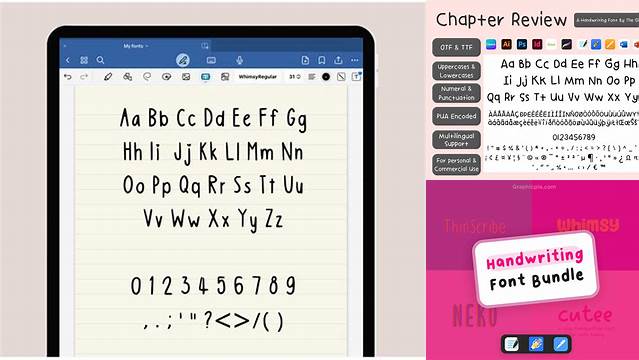
Best Handwriting Fonts For Goodnotes
Are you a GoodNotes enthusiast looking to jazz up your digital note-taking experience, guys? Well, you're in the right place! Choosing the best handwriting fonts for GoodNotes can seriously transform how you interact with your notes. It's like giving your digital handwriting a total makeover, making it look neater, more stylish, and, let's be honest, way more fun. This guide is all about helping you find the perfect fonts to match your style and make your GoodNotes experience pop.
1. Understanding the Power of Handwriting Fonts in GoodNotes
So, why are handwriting fonts such a big deal in GoodNotes? It's simple: they add personality and a human touch to your digital notes. Imagine your notes looking as if they were effortlessly written with a pen, even though they're typed. This can make your notes more engaging and easier to read. Beyond aesthetics, the right font can also improve how you organize your thoughts and remember information. Choosing the best handwriting fonts for GoodNotes means you're not just picking a font; you're choosing a way to express yourself, making your notes a reflection of your unique style. Plus, these fonts can be especially helpful if you're not a fan of your actual handwriting – a common issue, am I right? So, basically, handwriting fonts are all about personalization, enhancing readability, and making the whole note-taking process more enjoyable. Let's face it, we spend a lot of time with our notes, so why not make them something we love to look at? Let's dive deeper into how you can take advantage of them.
2. Key Features to Look for in Handwriting Fonts
Alright, let's get down to the nitty-gritty of what makes a good handwriting font, shall we? When you're on the hunt for the best handwriting fonts for GoodNotes, there are a few key features that you should keep an eye out for. First off, readability is king. Your chosen font should be easy on the eyes, even after long hours of note-taking. Then there's style; do you prefer a clean, modern look, or something more whimsical and playful? Consider the overall aesthetic and whether it matches your personal brand or note-taking needs. Also, look for font variations; some fonts come with different weights (like bold or light) and styles (like italic) that let you emphasize certain sections or headings. Finally, think about the character set – does the font include all the special characters and symbols you might need? A well-rounded font is a versatile font. Make sure your font has support for numbers, punctuation, and any special symbols you regularly use. The best handwriting fonts for GoodNotes will offer a balanced mix of style, readability, and functionality, making your note-taking experience as efficient as it is enjoyable.
3. Top Handwriting Font Styles Compatible with GoodNotes
Ready to explore some fantastic font styles? When we think about the best handwriting fonts for GoodNotes, it's essential to know what's out there. Here are some popular categories: First, there's the casual script. These fonts mimic the flow and feel of everyday handwriting, often with a relaxed and friendly vibe. Then, we've got the formal script fonts, which are more elegant and sophisticated, perfect for headings or important notes. Next up, we have sans-serif handwriting fonts. These are clean and modern, often with a minimalist aesthetic, ideal for readability and a contemporary look. Don't forget the hand-drawn fonts. These fonts offer a more playful and artistic feel, as if they were drawn with a pen or pencil. To help you decide, think about the vibe you want to project. Is it professional, casual, creative, or something else entirely? Experimenting with different styles helps you discover what fits your personal preference and note-taking needs.
6. Optimizing Your GoodNotes Experience with the Right Fonts
Now, let's talk about how to make your GoodNotes experience truly sing. Choosing the best handwriting fonts for GoodNotes is only the beginning; there are other ways to enhance the beauty of your notes. Font pairing is a great way to create visual harmony in your notes. Use a handwriting font for your main text and pair it with a clear, easy-to-read font for your headings. You can also use font sizes and weights to create a visual hierarchy. Make headings larger and bolder to draw attention, and keep your main text at a comfortable reading size. Don't be afraid to experiment with different fonts. Try a few different fonts to see what works best for you. This is all about finding a combo that you're most comfortable with. Also, consider the colors you use. Match the color of your text to your page background to improve readability. With a bit of practice, you'll be able to elevate your note-taking game. So, remember that it is not just the font that matters, but also the way you use it within your notes that really makes a difference.
7. Popular Free Handwriting Fonts for GoodNotes Users
Alright, let's look at some freebies, shall we? Finding the best handwriting fonts for GoodNotes without spending a dime is totally doable! Here's a list of some popular free handwriting fonts: Firstly, there's